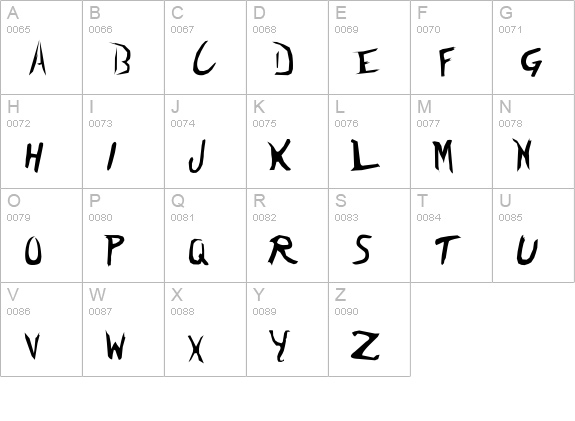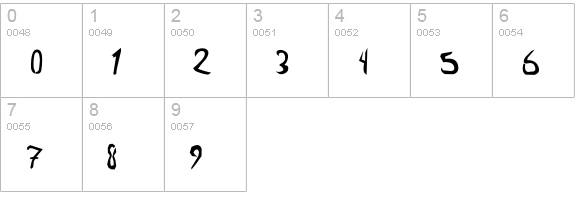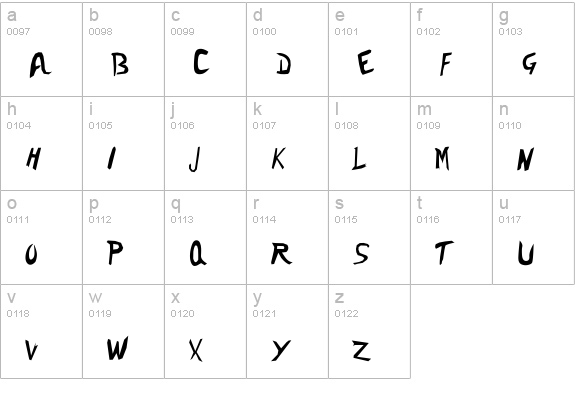
Introducing Shoryuken, a powerful and dynamic font that will ignite your designs with an electrifying energy. With its bold and striking letterforms, Shoryuken captures the essence of strength, speed, and precision. This font is perfect for any project that requires a touch of intensity and excitement. But what sets Shoryuken apart from other fonts is that it is not just powerful, it is also free. Yes, you read that right! Shoryuken is freely available to download at FontsMarket.com. Now you can unleash its incredible potential without any limitations or costs. Whether you're designing a logo, creating eye-catching headlines, or crafting attention-grabbing posters, Shoryuken will empower your work with its unique style and versatility. Its clean lines and sharp edges make it ideal for both digital and print designs, ensuring that your message will be conveyed with utmost clarity and impact. With Shoryuken, you will be able to command attention and leave a lasting impression on your audience. Its carefully crafted letterforms ensure legibility, even at small sizes, while retaining its bold personality. This font is the perfect choice for anyone looking to make a bold statement and stand out from the crowd. So why wait? Download Shoryuken for free at FontsMarket.com and let its electrifying presence elevate your designs to new heights. Unleash your creativity, captivate your audience, and make a lasting impact with Shoryuken font.